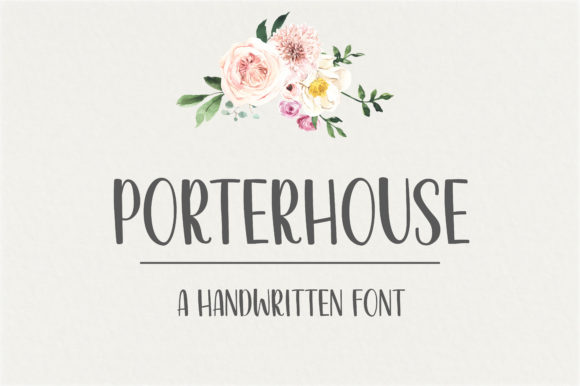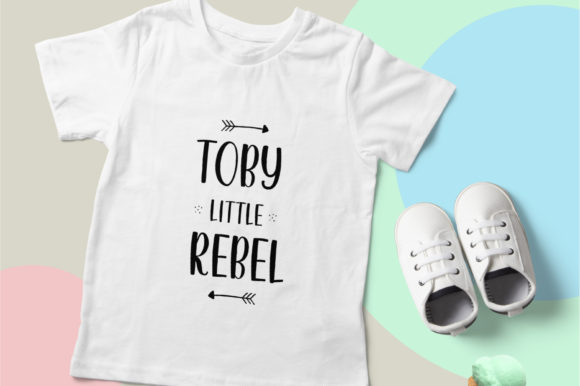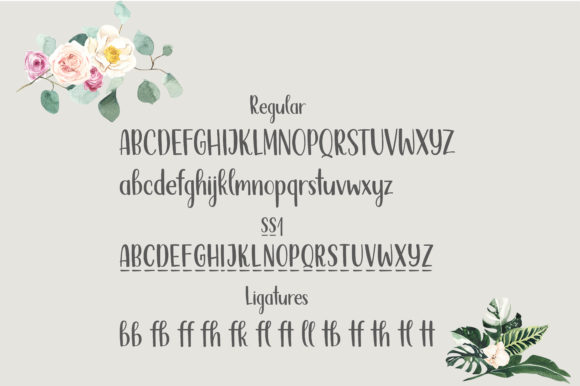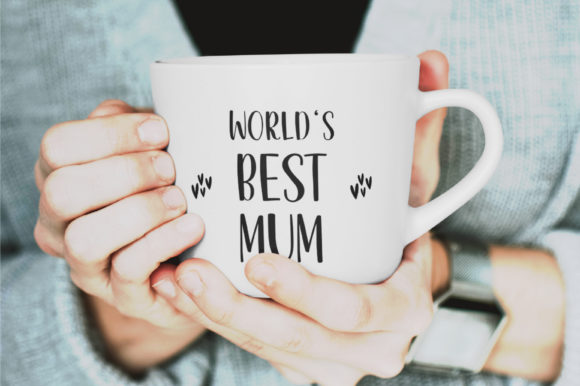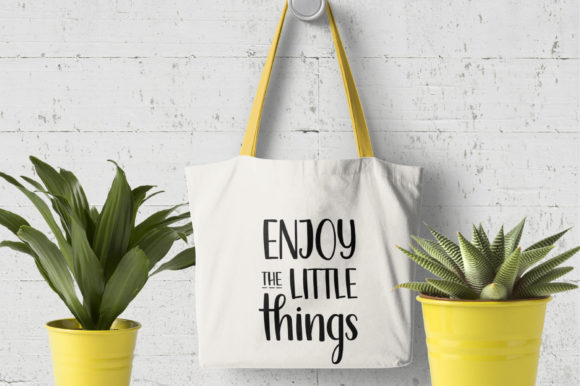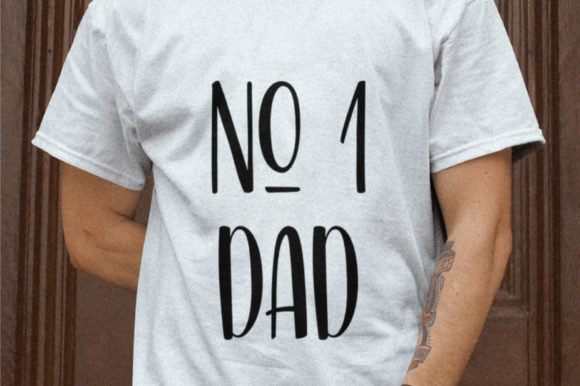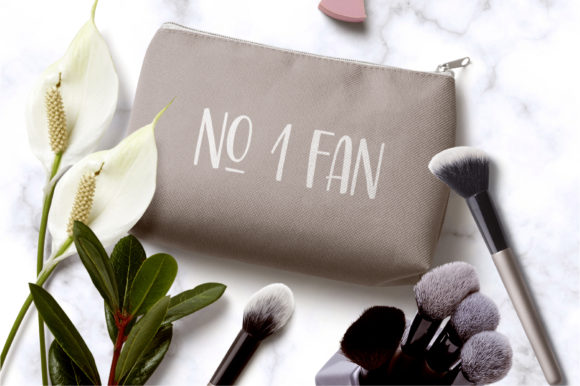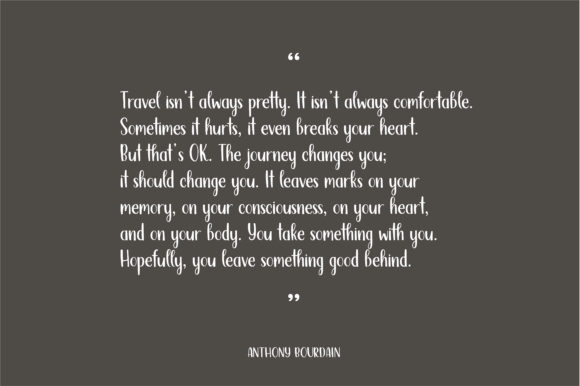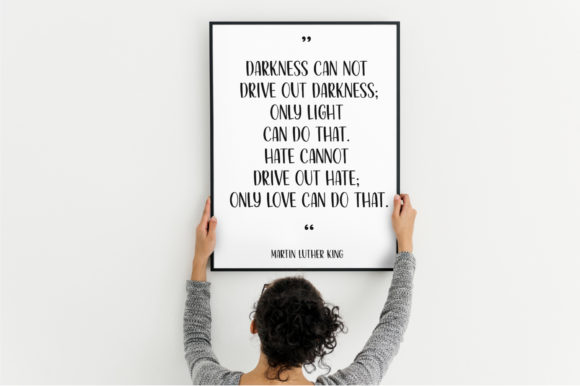
Porterhouse Font
About Porterhouse Font
Porterhouse is a sweet and simple handwritten font. Its natural and neat style makes it incredibly fitting to a large pool of designs. The only limit is your imagination!